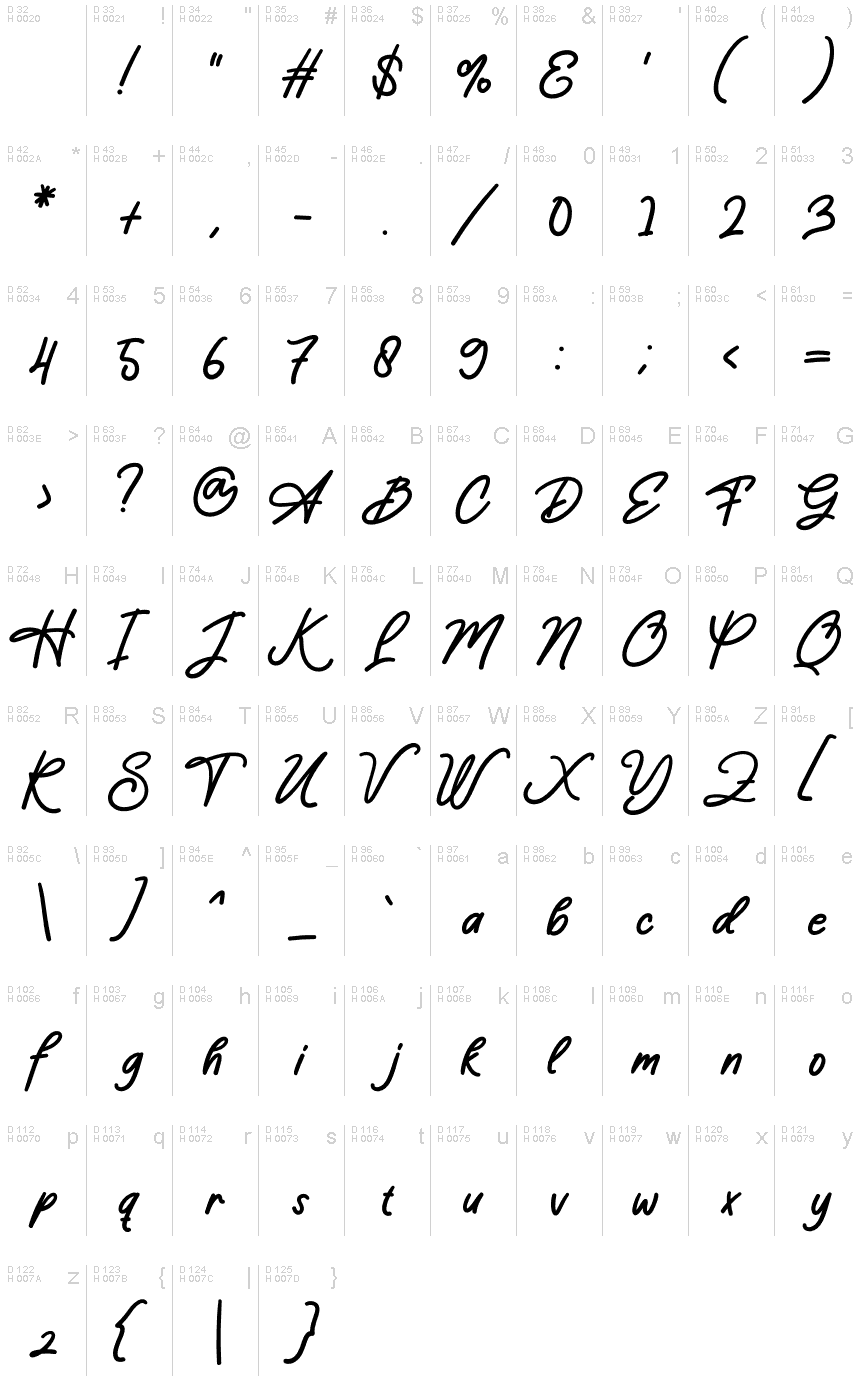
Amstelveen
Amstelveen is a charming semi-light handwritten font designed by scratchones. Its elegant curves and organic flow lend a natural and authentic feel to any project. This versatile font is perfect for branding, packaging, social media graphics, wedding invitations, and more. Whether you're looking to add a personal touch or create a whimsical vibe, Amstelveen will deliver with its subtle yet distinct character. So go ahead and elevate your designs with this one-of-a-kind font that will capture the essence of any creative endeavor!
the latest style letters are perfect for wall displays, wedding invitations, social media post logos, advertisements, product packaging, product designs, labels, photography, watermarks, invitations, stationery, and any project that requires taste handwriting.